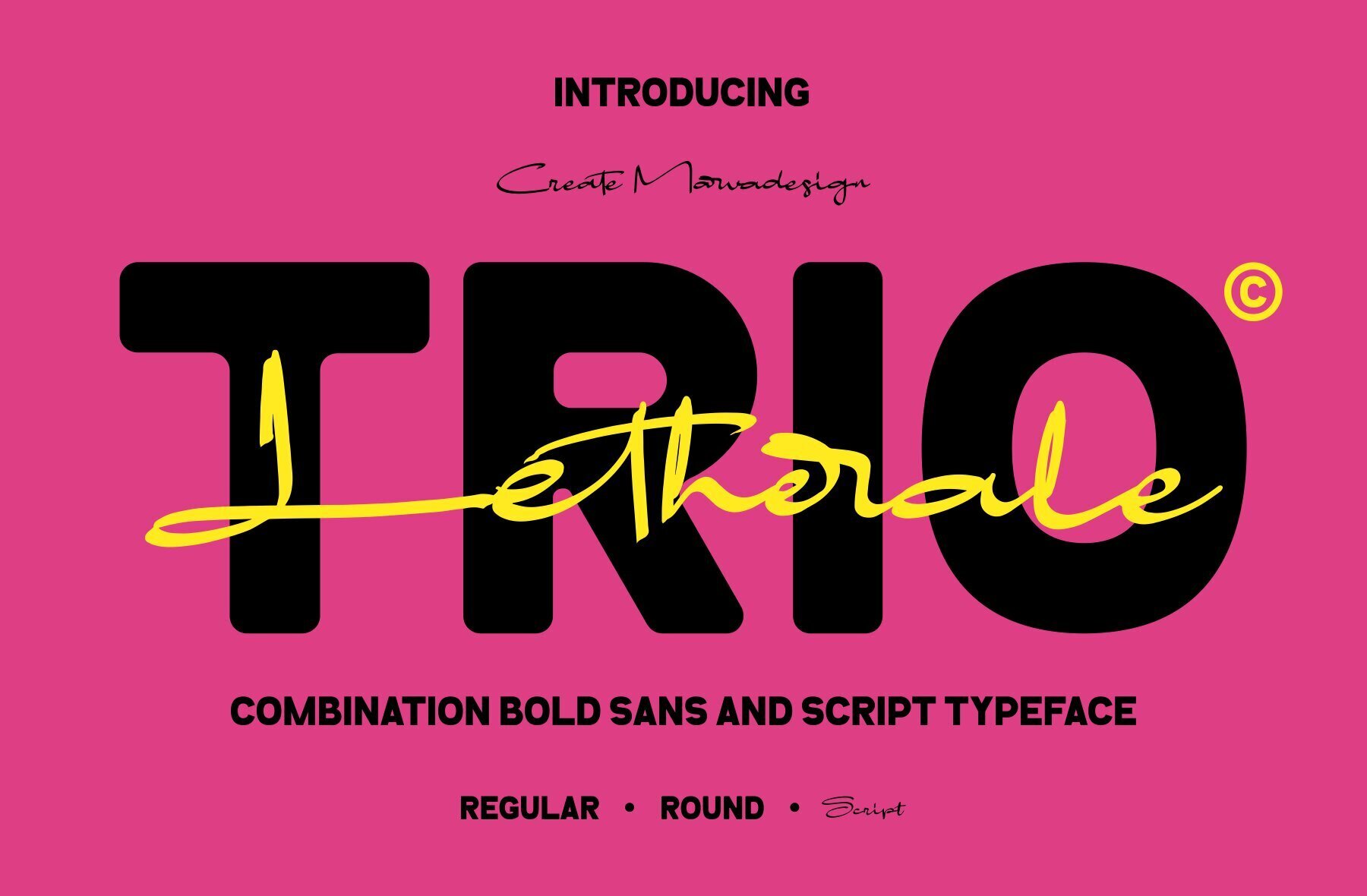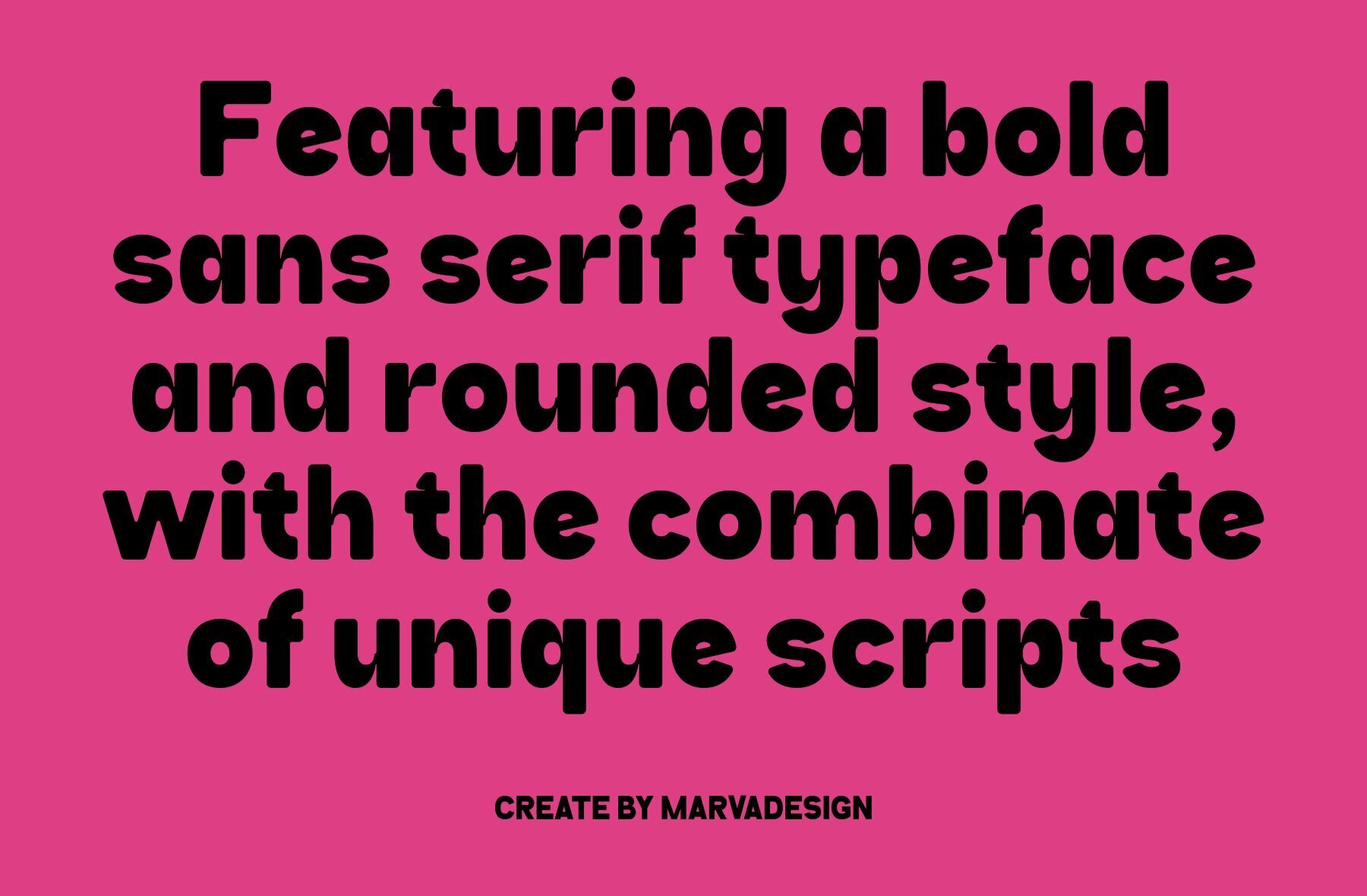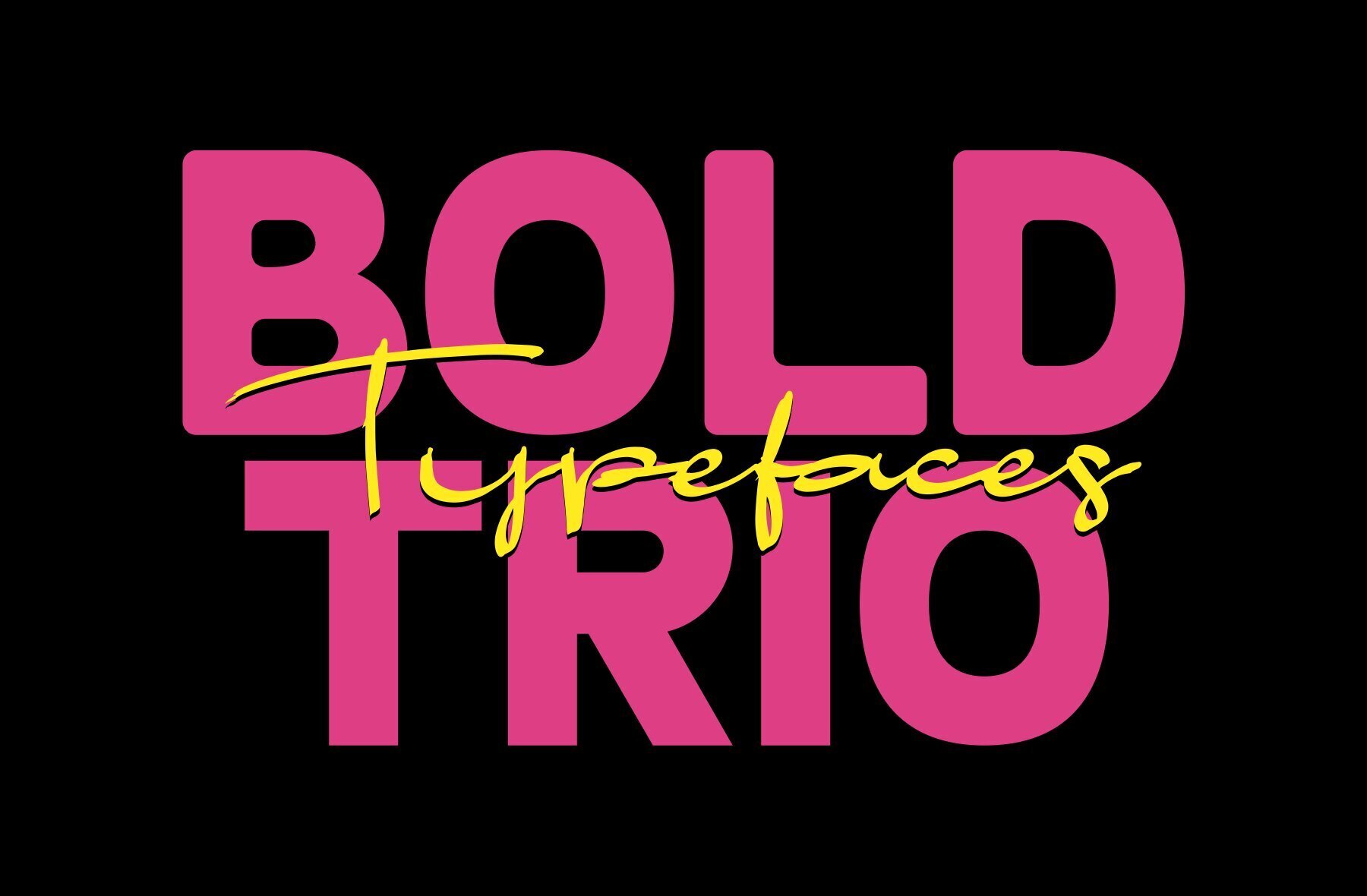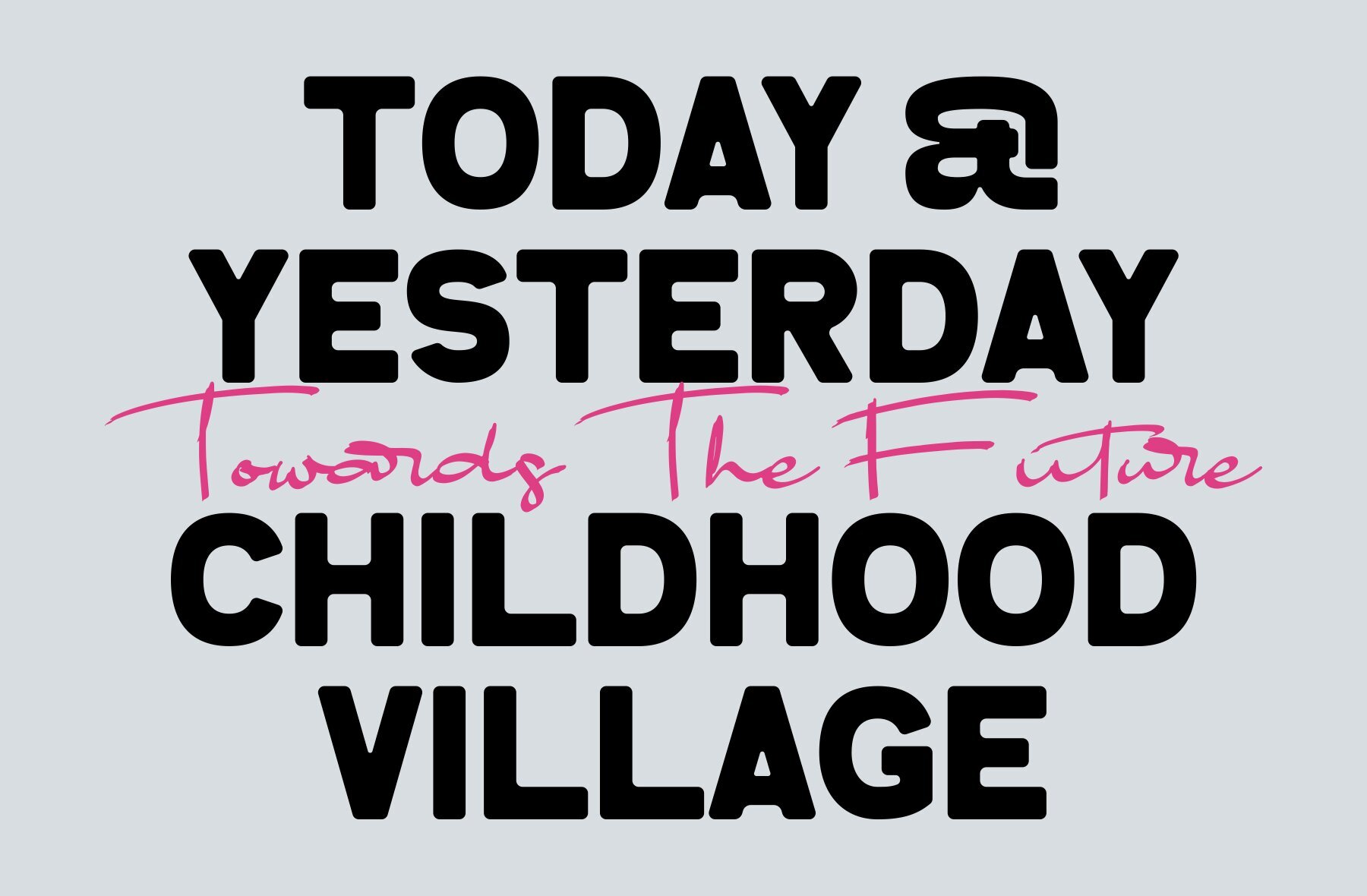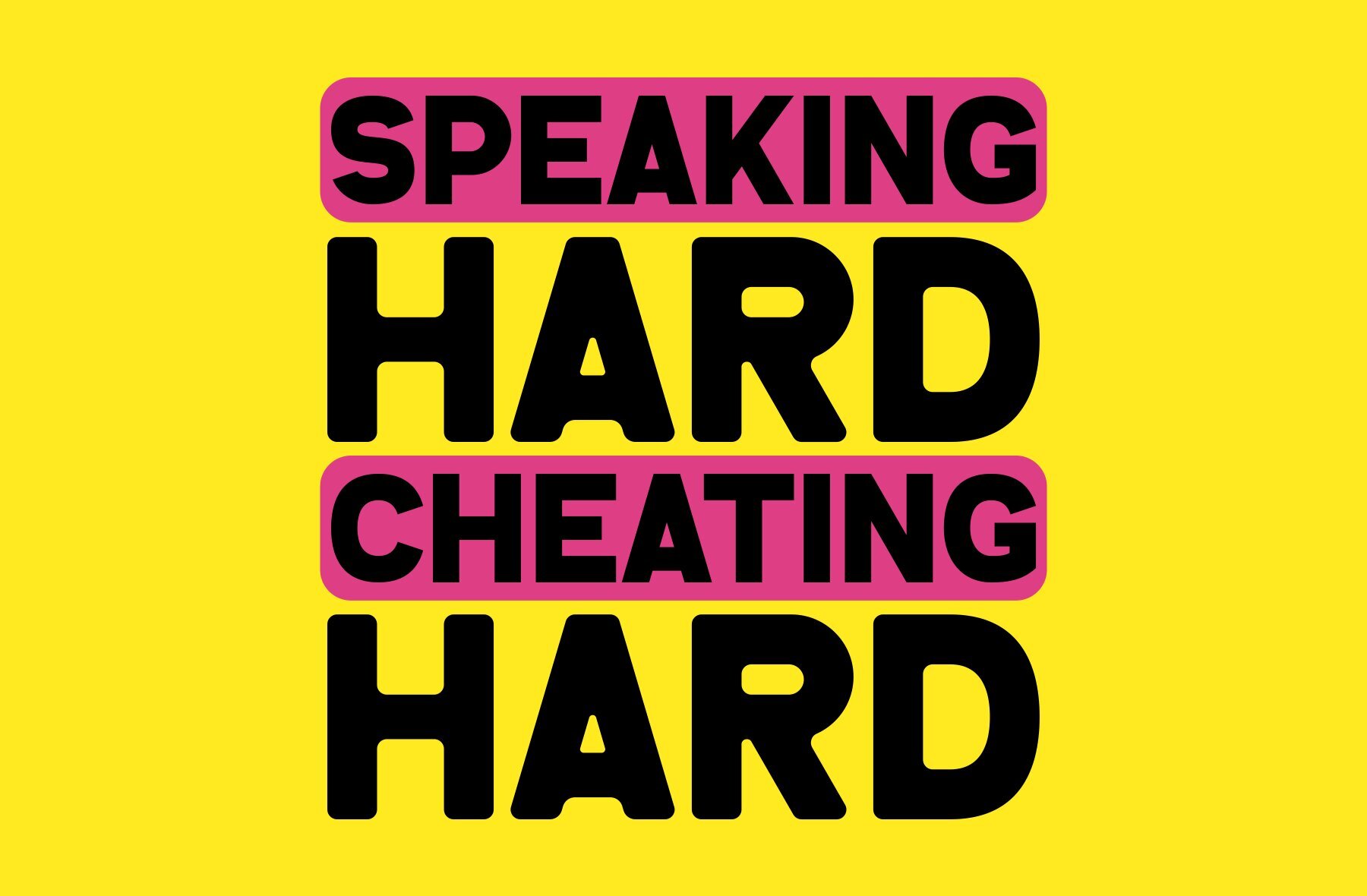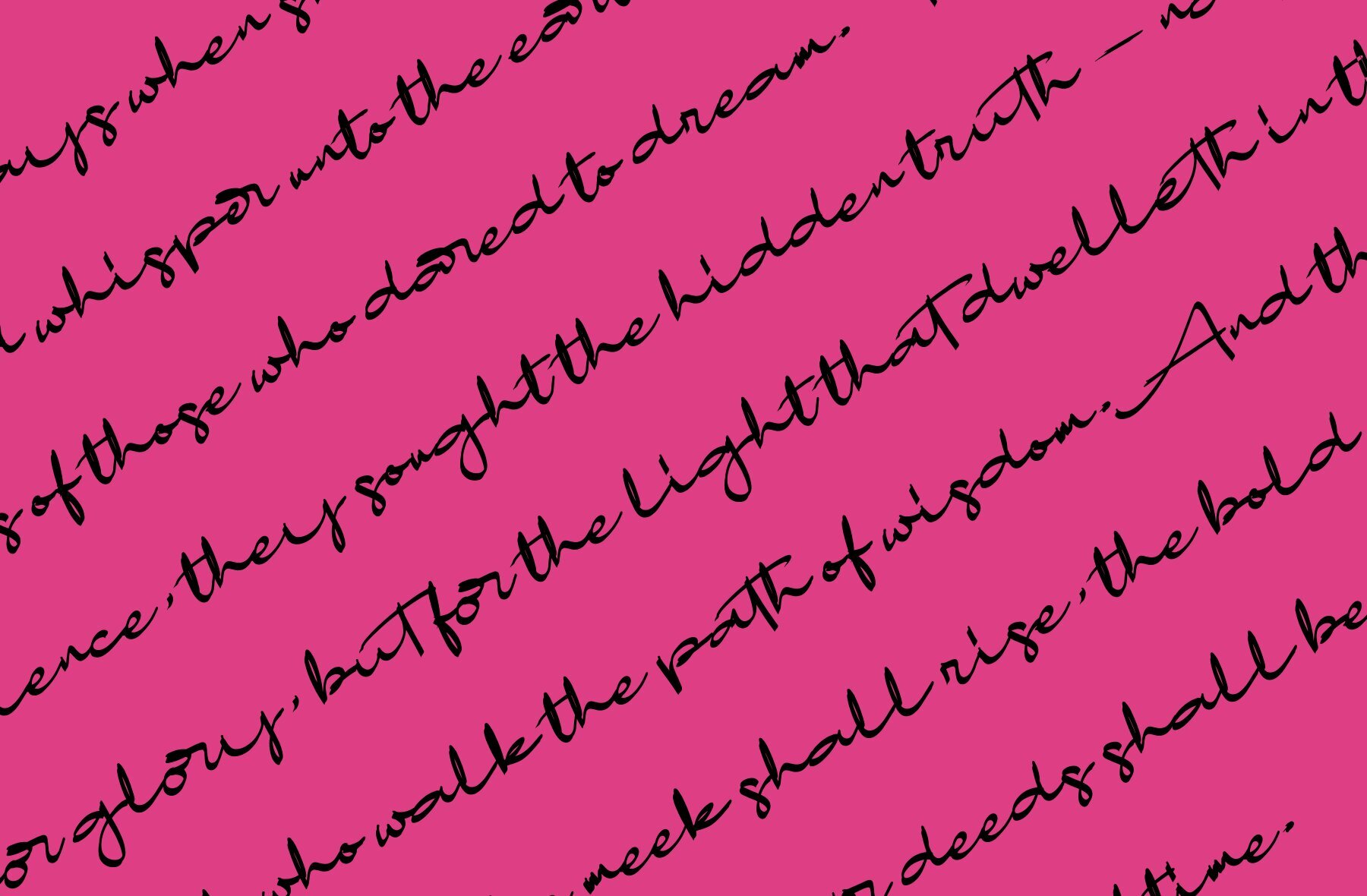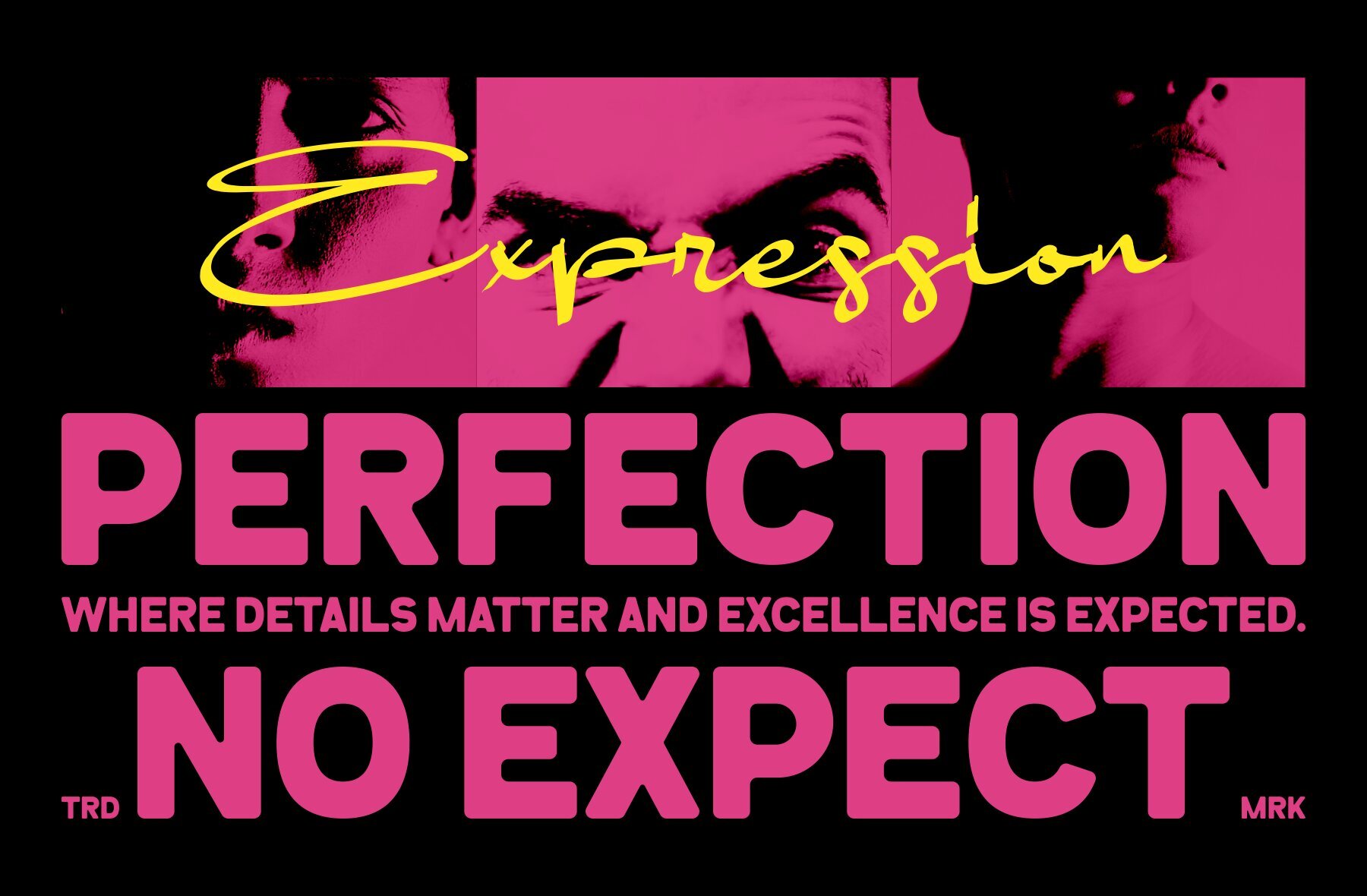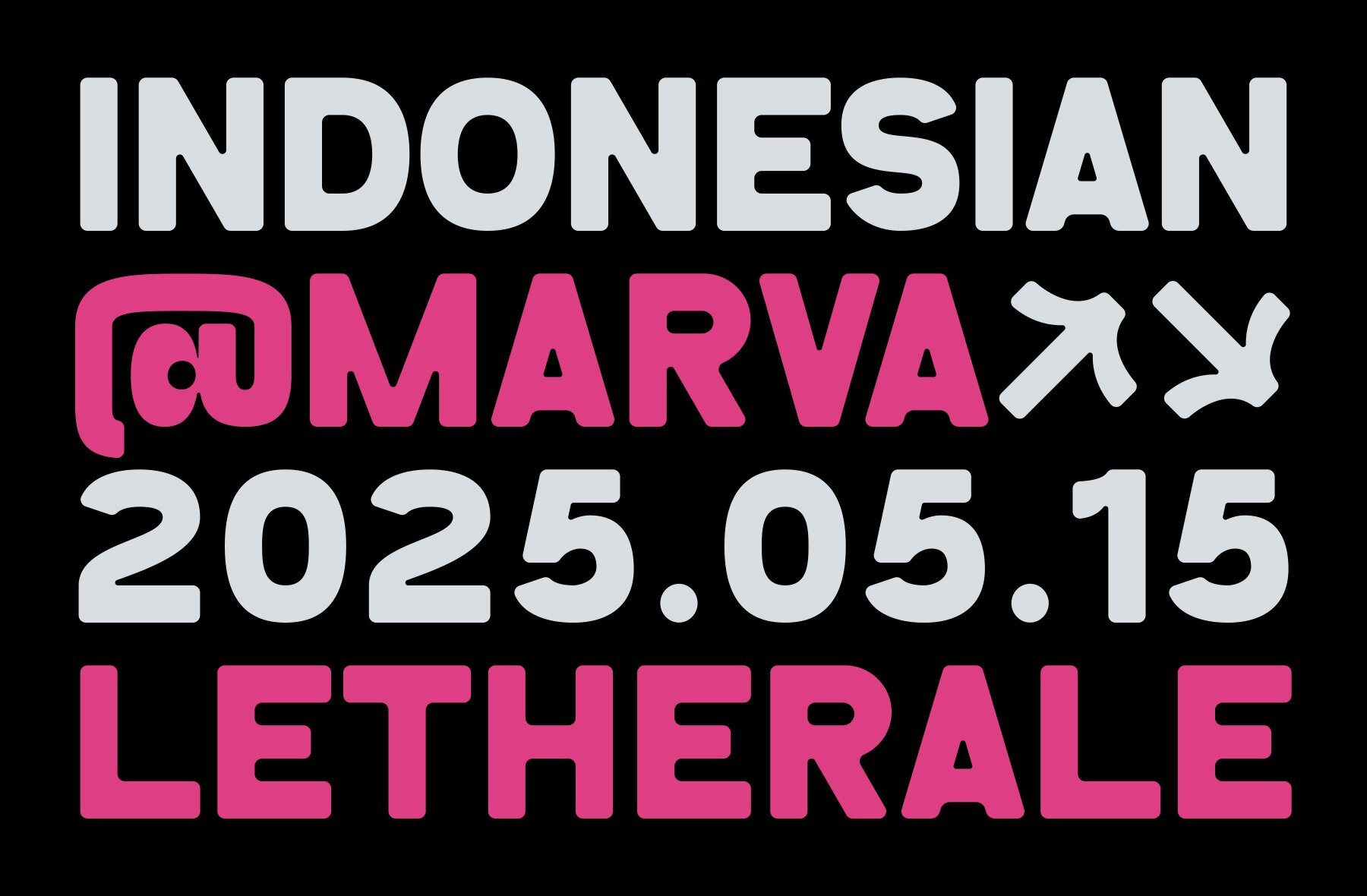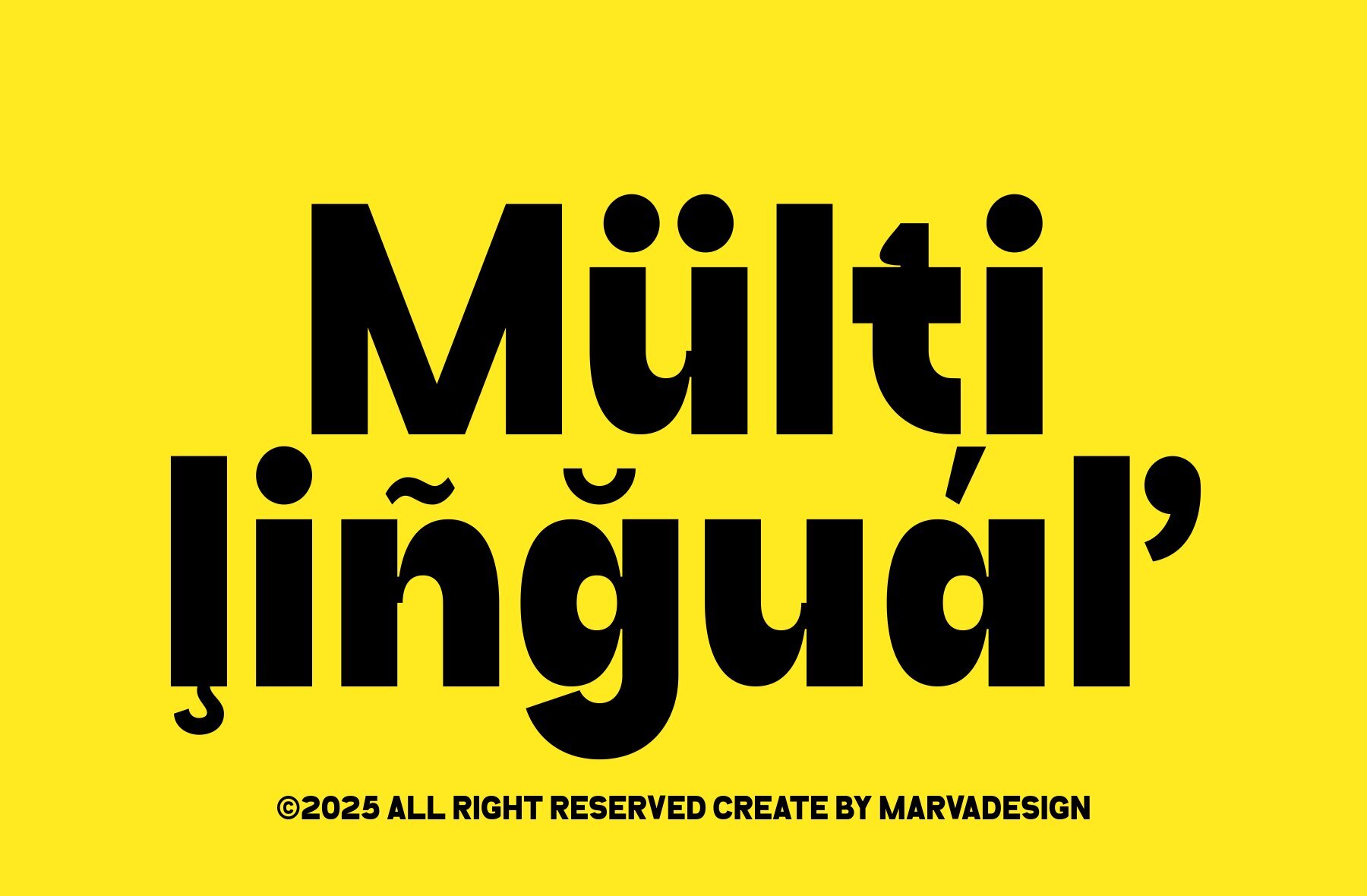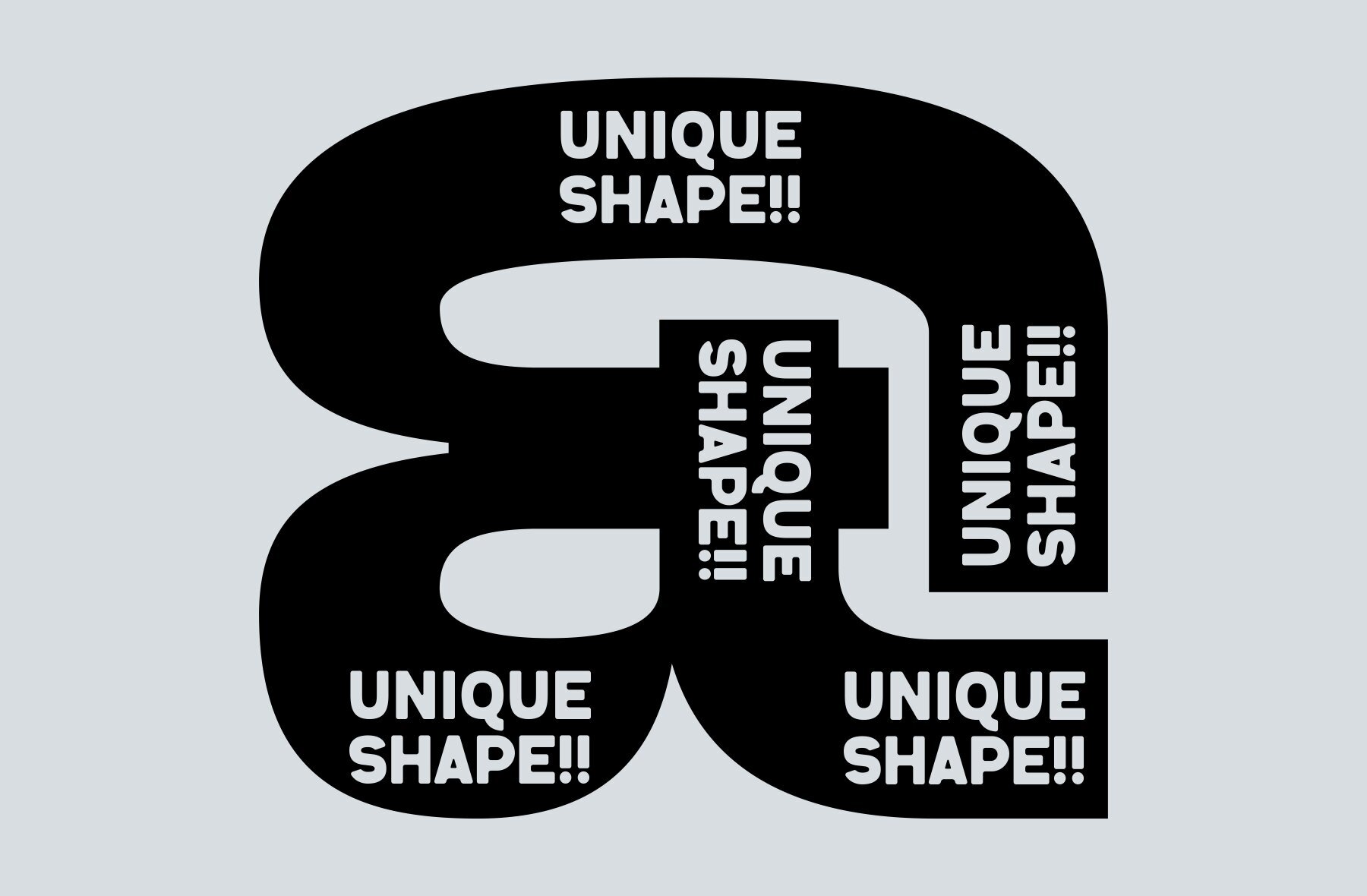
Letherale Font
Letherale presents a striking fusion of bold rounded script and sans serif elements, crafted to perfection for bold and impactful design applications. Its modern typographic system deftly balances the understated sturdiness of a confident sans serif base with the unique flair of stylized handwritten script. This combination is particularly effective for crafting eye-catching headlines and distinctive branding. Letherale's versatile design is ideal for various applications, from editorial design and posters to packaging and digital media. Its smooth, rounded edges deliver both clarity and elegance, making it an excellent choice for designers seeking a dynamic yet refined aesthetic.